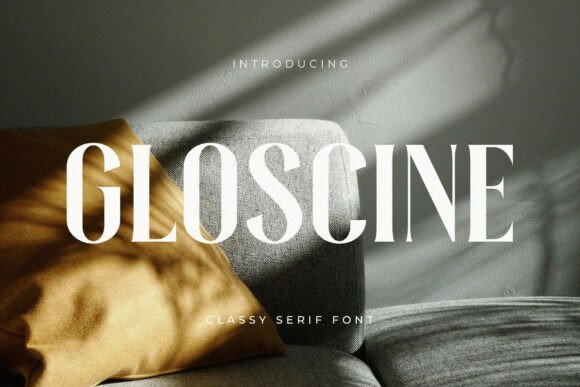
Unleash the Elegance of Your Design
Remember that moment when you’re brainstorming a new project, and the perfect font just pops into your mind? You envision a sleek, sophisticated look that sets your design apart from the rest. For those instances, we’ve got just the thing – the Gloscine Font. This modern vintage serif font is designed to bring a touch of timeless elegance to your luxury branding, editorial design, and more.
With its refined, condensed look and tall letterforms, the Gloscine Font is the perfect choice for designers seeking to add a dash of sophistication to their projects. Its versatility and stylish serifs make it ideal for high-end branding, magazine headlines, fashion logos, and wedding invitations. Whether you’re crafting a luxury brand or an artistic poster, the Gloscine Font gives your typography a voice that’s hard to ignore.
Gloscine Font Key Features
- Unique Characteristics: Gloscine Font features a unique blend of modern and elegant design elements, with subtle flourishes and curves that add a touch of sophistication to any text.
Gloscine Font Review
Overall, I think Gloscine Font has some great qualities, but it’s not perfect. Let’s start with what works well: ✨ The unique, elegant design of Gloscine Font is definitely a standout. It’s perfect for projects that need a touch of sophistication and refinement. The font is highly legible, even at smaller sizes, and the subtle flair on the curves adds a lot of visual interest.
✨ Another great thing about Gloscine Font is its versatility. It’s suitable for a wide range of projects, from corporate branding to creative design. The font is also highly customizable, which is a major plus. You can adjust the weight, spacing, and even the line height to get the perfect look for your project.
⚠️ One of the main limitations of Gloscine Font is its limited language support. If you’re working on a project that requires multiple languages, you may find that Gloscine Font doesn’t have the necessary characters to support it. Additionally, the font can be a bit too ornate for some projects, which may make it difficult to read at a distance.
Overall, I think Gloscine Font is a great addition to any designer’s toolkit. While it has some limitations, its unique design and versatility make it a great choice for a wide range of projects. Just be sure to test it out thoroughly before committing to a project, and you’ll be all set.
- ✨ Unique and elegant design
- ✨ Highly legible, even at small sizes
- ✨ Versatile and suitable for a wide range of projects
- ✨ Highly customizable
- ⚠️ Limited language support
- ⚠️ Can be too ornate for some projects
Gloscine Font Practical Application Guide
Getting the Most Out of Gloscine Font
Experiment with different font sizes, colors, and styles to create visually appealing designs. Use Gloscine Font in combination with other design elements, such as images and graphics, to add depth and interest to your work.
Gloscine Font is ideal for use in creative projects, such as logos, branding materials, and advertising campaigns. It’s also suitable for use in digital media, such as websites and social media graphics.